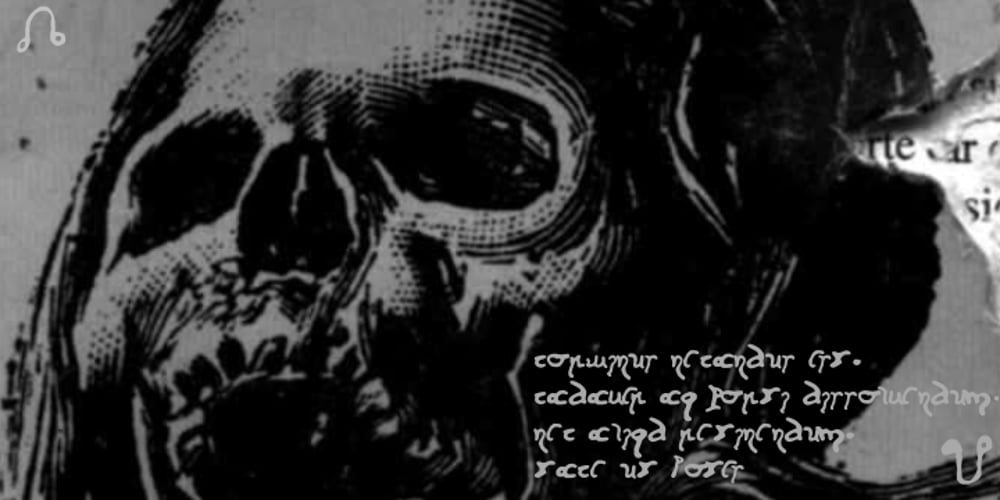
Cursivo Saxonio
Cursivo Saxonio font
Cursivo Saxonio Font Family was designed by Paulo W and published by Intellecta Design. Cursivo Saxonio contains 1 styles and family package options. Cursivo Saxonio is a typeface inspired in the famous book The Case of Charles Dexter Ward, by H P Lovecraft. It shows better than I get with my studies the authentic “Insularis” or “Cursivo Saxonio” handlettering of the VIII and XI centuries used by some people in Britain. The text on the accompanying poster reads: “Corwinus necandus est. Cadaver aq(ua) forti dissolvendum, nec aliq(ui)d retinendum. Tace ut potes”